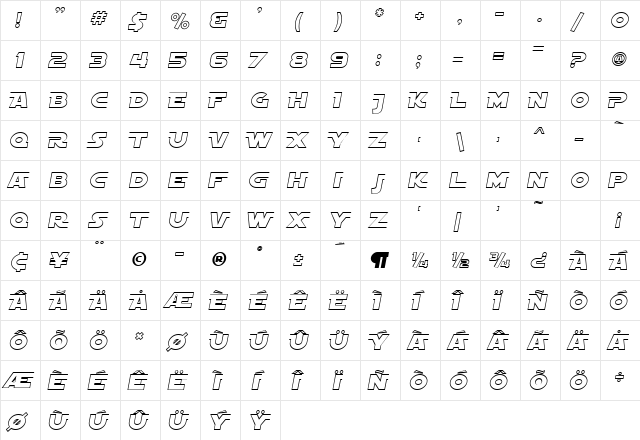
SF Distant Galaxy AltOutline Italic
Design Context for SF Distant Galaxy AltOutline Typeface
SF Distant Galaxy AltOutline brings ornamental detail and strong personality to headlines and identities, where visual impact matters more than quiet functionality. The dynamic lean of this cut emphasises speed and emphasis in any layout.
Font Pairing: Pair with a clean neutral sans-serif for body copy to let SF Distant Galaxy AltOutline's character lead without overwhelming the composition.
Pro Tip: Use SF Distant Galaxy AltOutline exclusively at display sizes — it was designed to be seen, not read at length. Let a neutral companion handle body copy.